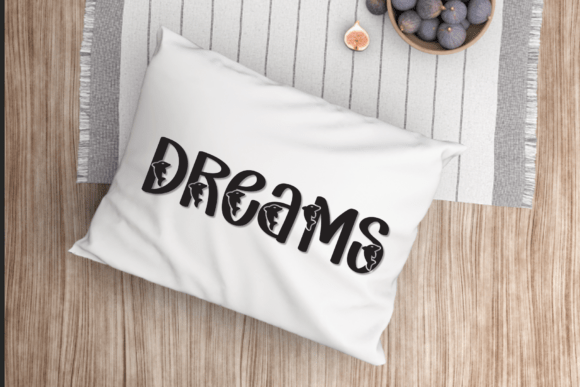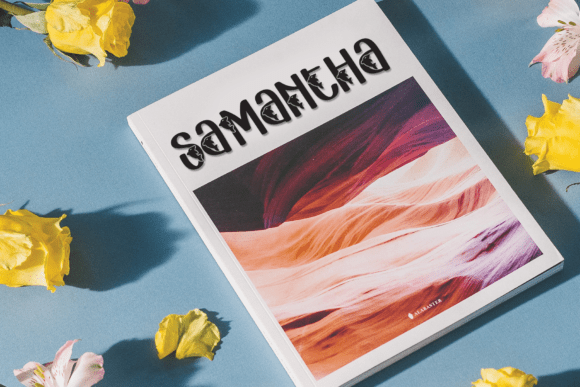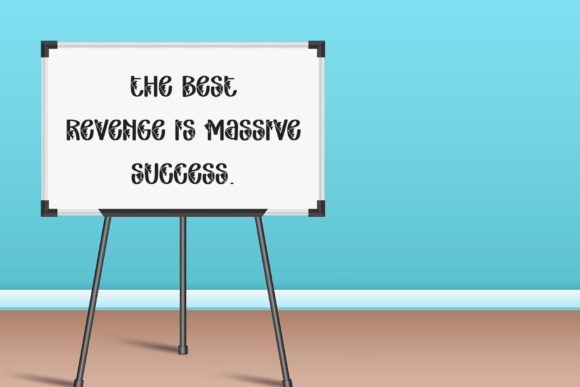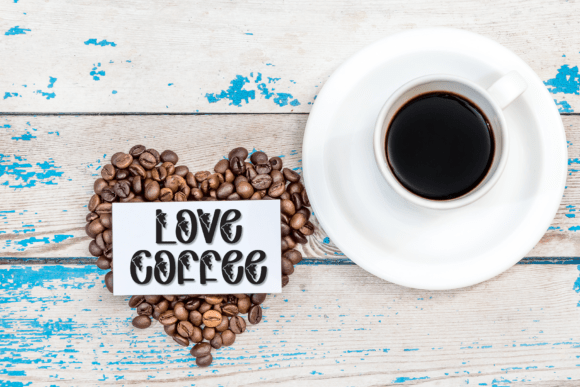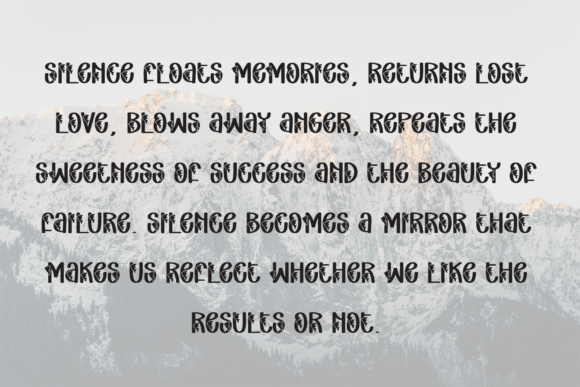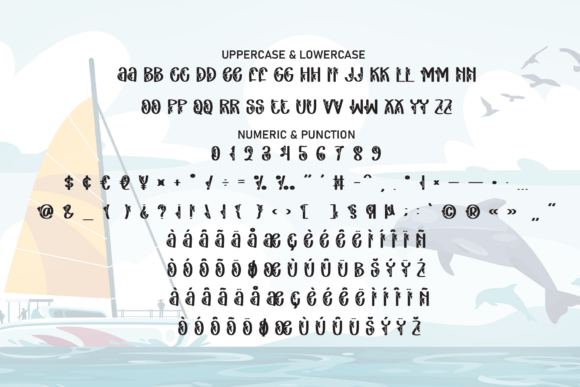
Dolphin Fishing Font: The Perfect Blend of Modern Simplicity and Playful Charm
In the world of typography, fonts play a crucial role in conveying the tone and personality of a design. For designers and crafters looking for a font that embodies a casual, yet stylish vibe, Dolphin Fishing Font is an excellent choice. This article will delve into the features, benefits, and uses of Dolphin Fishing Font, exploring how it can elevate your design projects with its unique blend of modern simplicity and playful charm.
What is Dolphin Fishing Font?
Dolphin Fishing Font is a casual display font designed to capture the essence of relaxed design while maintaining clarity and style. Its clean shapes, soft edges, and well-balanced letterforms make it an ideal choice for a wide range of design applications. Whether you’re working on posters, branding, packaging, or social media graphics, this font adds a fresh and friendly touch to any project.
Key Features of Dolphin Fishing Font
- Modern Simplicity: Dolphin Fishing Font boasts a modern aesthetic with clean lines and simple shapes, making it perfect for designs that require a contemporary feel.
- Playful and Approachable Vibe: The font’s soft edges and rounded letterforms give it a playful and approachable vibe, ideal for designs that aim to connect with a younger audience or convey a sense of friendliness.
- Well-Balanced Letterforms: The font’s letterforms are carefully crafted to ensure balance and harmony, making it easy to read and understand.
- Versatile Character: Dolphin Fishing Font has a versatile character that can be used in various design contexts, from posters and branding to packaging and social media graphics.
- Eye-Catching Appeal: The font’s unique blend of modern simplicity and playful charm makes it stand out from other fonts, adding an eye-catching appeal to any design.
Benefits of Using Dolphin Fishing Font
So, why should designers and crafters choose Dolphin Fishing Font for their projects? Here are some benefits of using this font:
- Readability: Dolphin Fishing Font delivers both readability and personality, making it an excellent choice for designs that require a clear and concise message.
- Uniqueness: The font’s unique blend of modern simplicity and playful charm sets it apart from other fonts, giving designers and crafters a chance to create distinctive and memorable designs.
- Flexibility: Dolphin Fishing Font can be used in various design contexts, making it a versatile addition to any designer’s or crafter’s toolkit.
- Time-Saving: With Dolphin Fishing Font, designers and crafters can save time and effort in creating custom fonts or searching for the perfect font to match their design vision.
Uses of Dolphin Fishing Font
Dolphin Fishing Font is an excellent choice for a wide range of design applications, including:
- Posters: The font’s bold and playful character makes it perfect for creating eye-catching posters that grab attention.
- Branding: Dolphin Fishing Font can be used to create a consistent brand identity that conveys a sense of friendliness and approachability.
- Packaging: The font’s clean and modern aesthetic makes it suitable for packaging designs that require a contemporary feel.
- Social Media Graphics: Dolphin Fishing Font can be used to create engaging social media graphics that connect with a younger audience.
In conclusion, Dolphin Fishing Font is an excellent choice for designers and crafters looking for a font that embodies a casual, yet stylish vibe. Its unique blend of modern simplicity and playful charm makes it perfect for a wide range of design applications, from posters and branding to packaging and social media graphics. With its versatility, readability, and eye-catching appeal, Dolphin Fishing Font is sure to elevate your design projects and help you create distinctive and memorable designs.